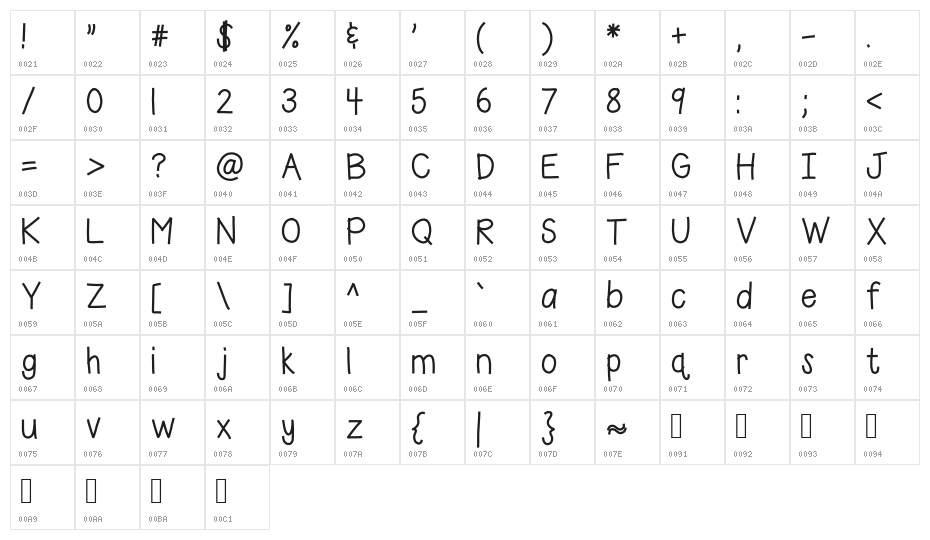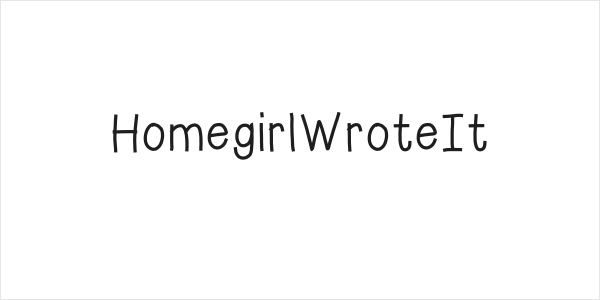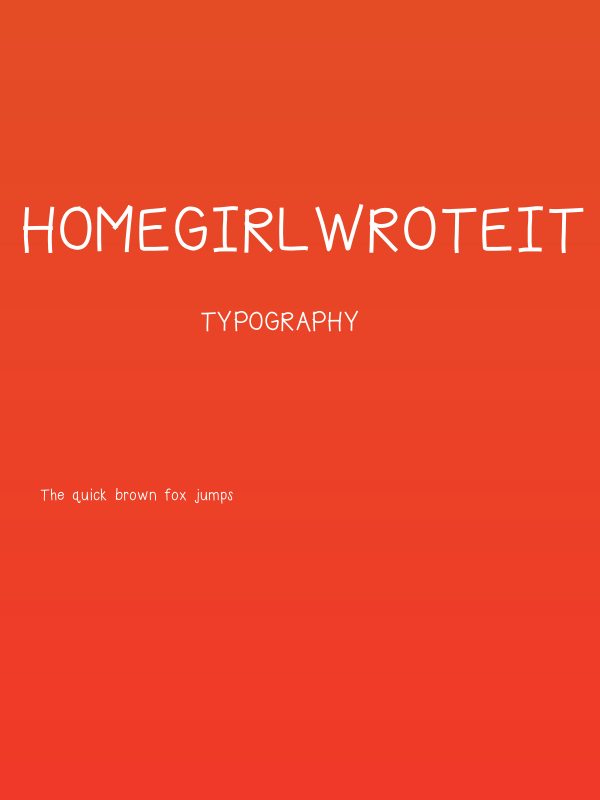
HomegirlWroteIt Font
This font exudes a playful and casual handwritten style, characterized by its irregular strokes and slightly uneven baseline. The letters are crafted with a personal touch, giving off a friendly and approachable vibe. The uppercase letters are bold and slightly taller than the lowercase, which are more rounded and relaxed. Numbers and special characters maintain the same whimsical style, ensuring consistency throughout. The overall appearance is informal, making it ideal for projects that require a personal or creative touch.
Overall StyleCasual, Playful
Use CaseHeadlines, Informal text, Creative projects
Proposed ProjectsIdeal for greeting cards, personal blogs, children's books, and creative branding projects.